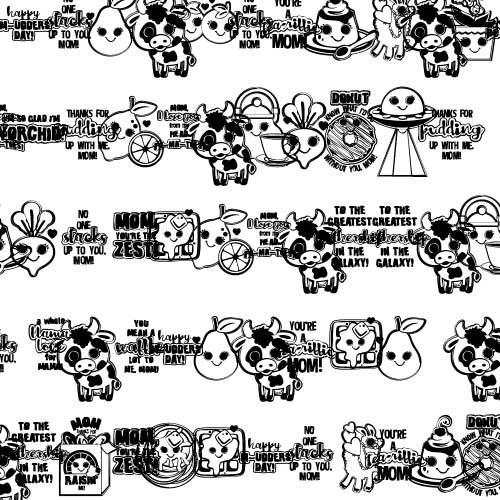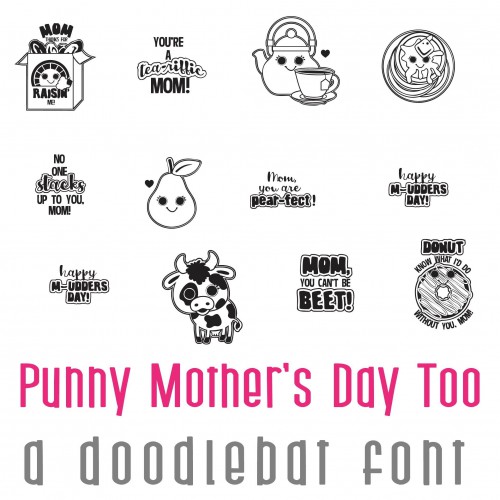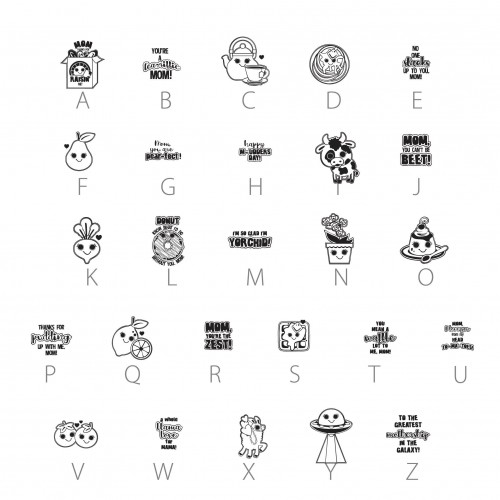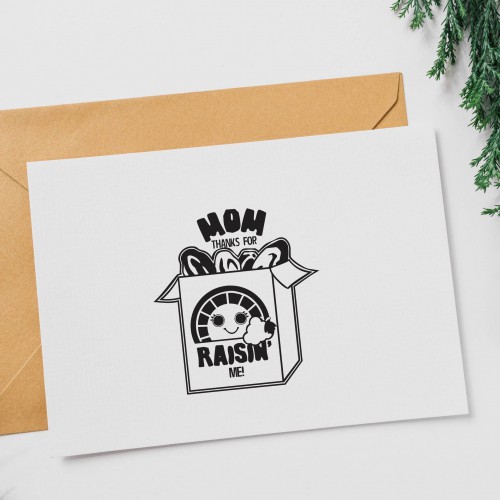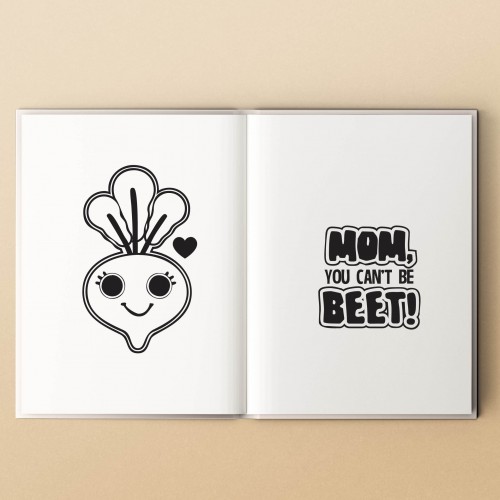
DB Punny Mother's Day - Too - DB
This adorable doodlebat font features 27 kawaii style images with corresponding Mother's Day puns. Perfect for Mother's Day, gifts, card making, planner stickers, scrapbook pages, decor and more!